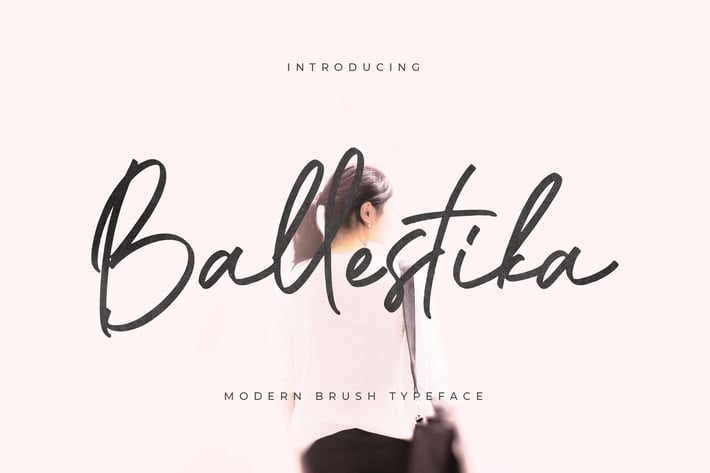
Ballestika Script Font
aqrstudio
Ballestika Font that contains a lowercase, uppercase, symbol, and also support multi-language. There’s a lot of ligature in this font. Ballestika Font also comes with ligatures, stylistic alternates and many more. this font suitable for fashion, branding, catalog and other design what you want.